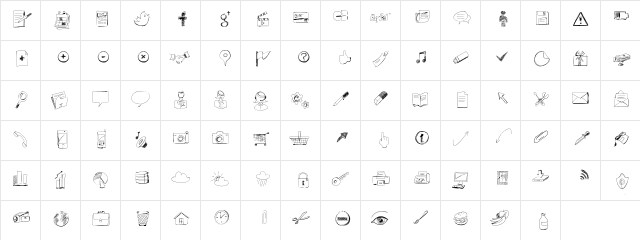
SketchIcons Medium
Design Context for SketchIcons Typeface
SketchIcons is a composed and adaptable typeface that performs quietly and consistently across a wide range of design contexts.